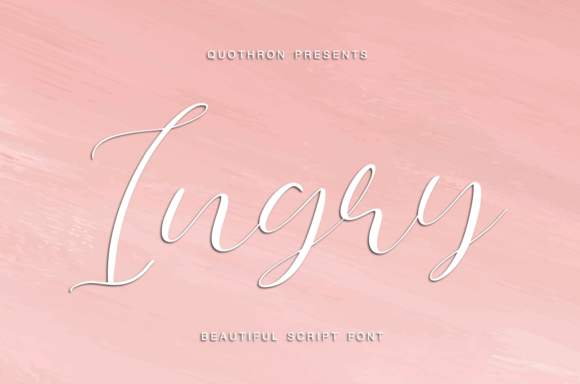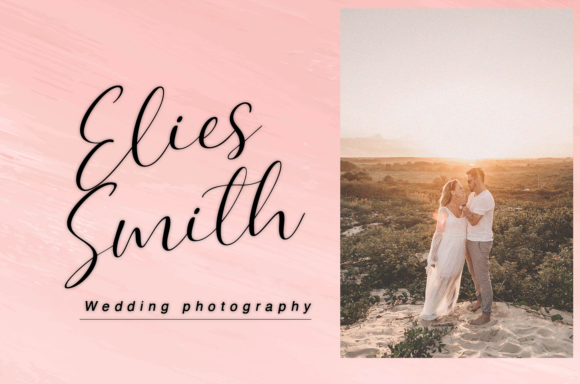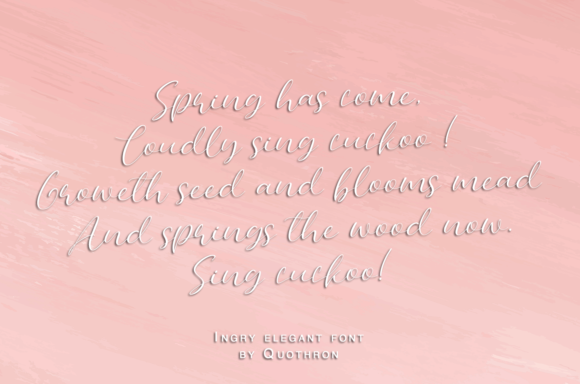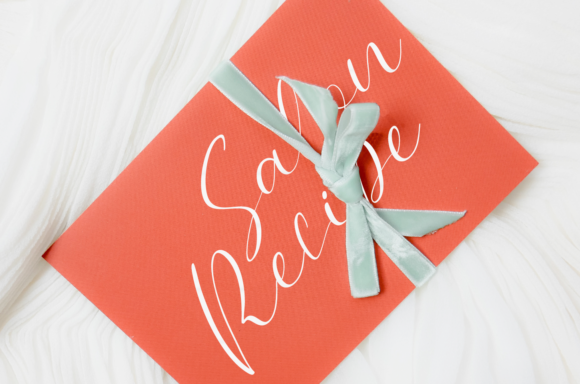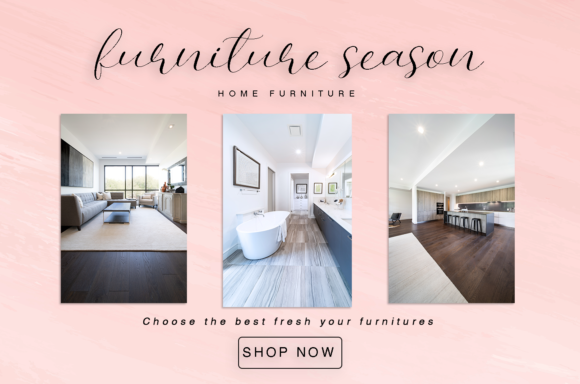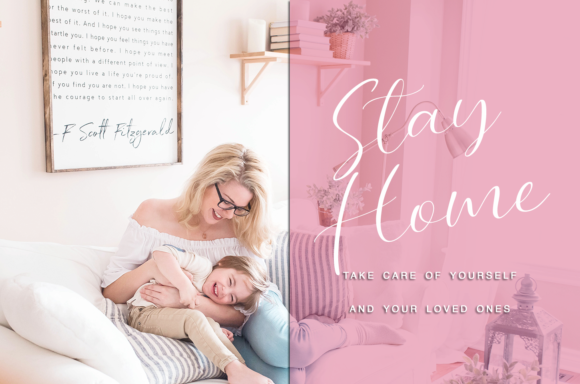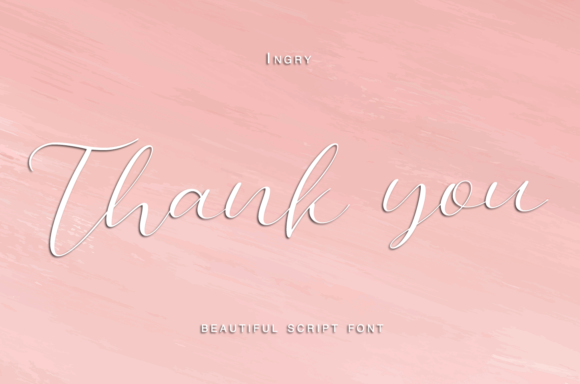
Ingry Font
About Ingry Font
Ingry simplifies elegance into one truly outstanding handwritten font. It maintains its classy calligraphic influences while feeling contemporary and fresh. Use this gorgeous and unique font to bring any DIY project to life!